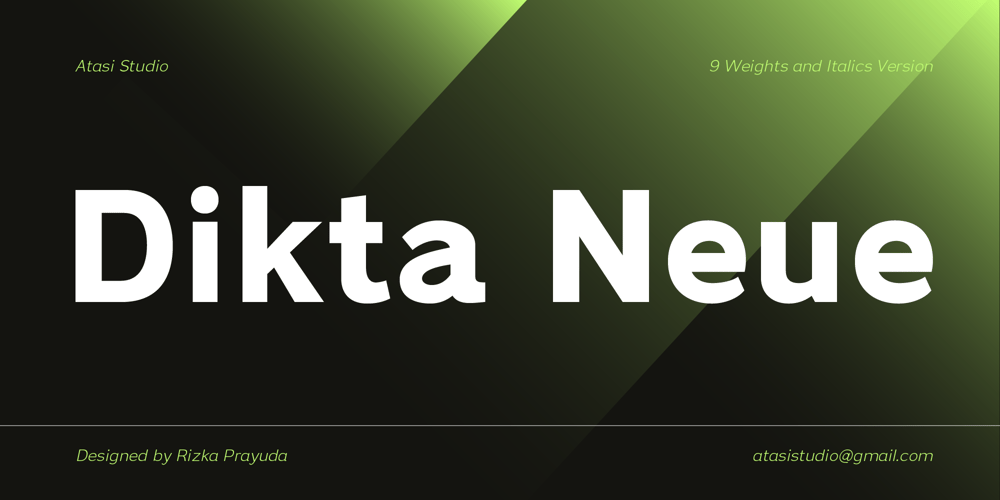
Dikta Neue Font Family was designed by Rizka Prayuda and published by Atasi Studio. Dikta Neue contains 18 styles and family package options. Dikta Neue is a neo-grotesque sans serif typeface inspired by Swiss Design in The 1960s. With a solid and minimalist letterform make this typeface suitable for text and display. Dikta Neue is available in 18 different styles from thin to black including italics.